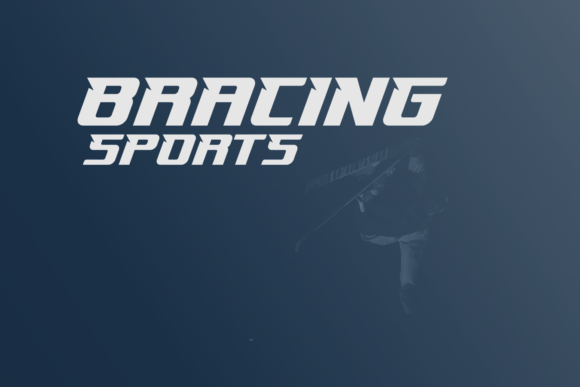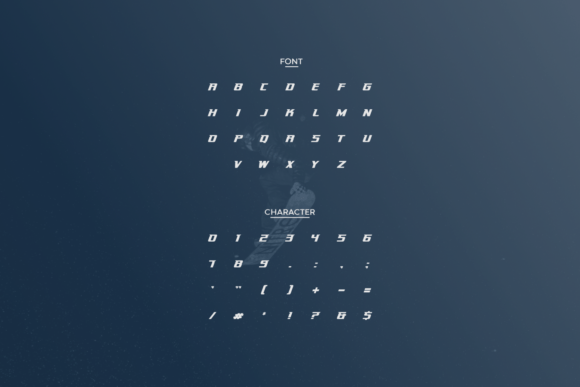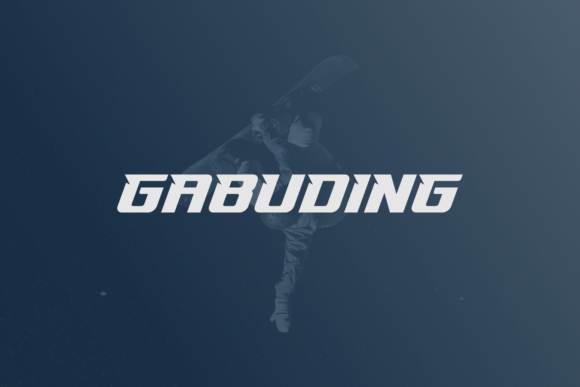
Introducing Guroba Font: The Ultimate Modern Letter Cutout Experience
In the world of typography, fonts play a crucial role in conveying messages, expressing emotions, and creating a lasting impression. For designers and crafters, finding the perfect font can be a daunting task, especially when it comes to creating modern and dynamic text. That’s where Guroba Font comes in – a game-changing, all-caps font that combines the futuristic with the sporty, making it an incredibly powerful tool for any design project.
What Makes Guroba Font Stand Out?
Guroba Font boasts a unique, modern letter cutout design with a dynamic slant that sets it apart from other fonts. Its cutting-edge style makes it perfect for a wide range of applications, from logos and headlines to posters, magazines, and even games. The font’s all-caps design gives it a strong, confident look that’s sure to grab attention and leave a lasting impression.
The Perfect Blend of Future and Sport
Guroba Font’s design is a masterful blend of futuristic and sporty elements, making it an ideal choice for designers who want to create modern and dynamic text. The font’s sleek lines, sharp edges, and bold structure evoke a sense of speed, energy, and movement, while its futuristic look adds a touch of innovation and forward thinking. Whether you’re designing a logo for a sports brand or a futuristic-themed poster, Guroba Font is the perfect choice.
One of the best things about Guroba Font is its versatility. Its all-caps design and dynamic slant make it suitable for a wide range of design projects, including:
- Logos: Create a bold and memorable logo that stands out from the crowd.
- Headlines: Grab attention with a striking headline that showcases your message.
- Posters: Add a touch of modernity and energy to your posters with Guroba Font.
- Magazines: Use Guroba Font to create eye-catching headings and titles that draw readers in.
- Games: Add a futuristic touch to your game designs with Guroba Font’s unique style.
Why Choose Guroba Font?
So, why should you choose Guroba Font for your next design project? Here are just a few reasons:
- Unique Design: Guroba Font’s modern letter cutout design and dynamic slant make it a one-of-a-kind font that’s sure to stand out.
- Versatility: Use Guroba Font for a wide range of design projects, from logos and headlines to posters and magazines.
- Easy to Read: Despite its bold and dynamic design, Guroba Font is easy to read, making it perfect for body text and headings.
- High-Quality: Guroba Font is a high-quality font that’s designed to deliver exceptional results.
Get Ready to Experience Fresh and New Design
If you’re tired of using the same old fonts and want to take your designs to the next level, Guroba Font is the perfect choice. With its modern letter cutout design, dynamic slant, and all-caps structure, Guroba Font is sure to bring a fresh and new perspective to your designs. So, what are you waiting for? Grab Guroba Font today and experience the power of modern typography!
In conclusion, Guroba Font is a game-changing font that’s perfect for designers and crafters who want to create modern and dynamic text. Its unique design, versatility, and high-quality structure make it an ideal choice for a wide range of design projects. Whether you’re designing a logo, headline, poster, or magazine, Guroba Font is sure to deliver exceptional results. So, don’t miss out on this opportunity to take your designs to the next level – get Guroba Font today!